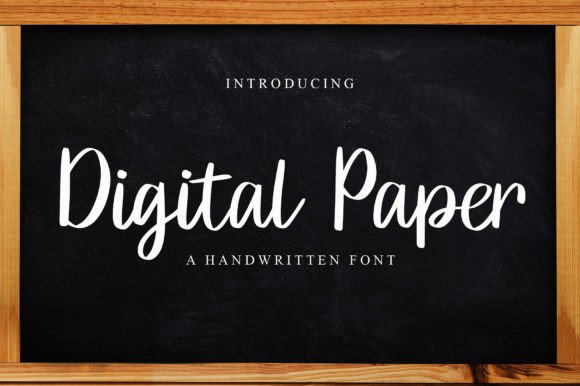
Prepare to be mesmerized by Digital Paper, a captivating script font crafted with meticulous attention to detail by the talented designers at feetype. Immerse yourself in the enchanting world of Digital Paper, a font family that exudes elegance, playfulness, and boundless creativity.
Step into a realm where your words come to life, dancing gracefully across the page like a delicate ballet. Digital Paper's charming characters possess an intrinsic rhythm, effortlessly flowing from one letter to the next, creating a visual symphony that captivates the beholder.
This font is not merely a tool for communication; it is an art form, a means of expressing your individuality and leaving an unforgettable impression. Whether you're designing brochures, crafting invitations, or creating social media posts, Digital Paper will transform your words into captivating works of art.
Imagine your brochure design adorned with the whimsical strokes of Digital Paper, inviting your readers to embark on a journey of discovery. The playful characters will dance before their eyes, capturing their attention and urging them to delve deeper into your message.
With Digital Paper, you hold the power to evoke emotions, create lasting impressions, and leave a legacy of creativity. Let your imagination soar, embrace the magic of this extraordinary font, and watch as your designs blossom into masterpieces.